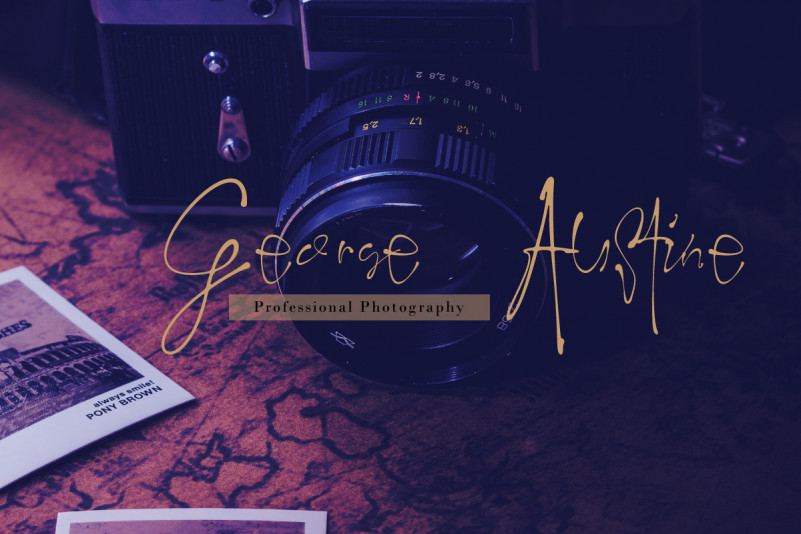
Traffalgar D’ Signature Font
Traffalgar D’ Signature Font is an elegant handwritten signature with a natural style. This collection is perfect for personal branding that intends to be used as a watermark and business card.
Traffalgar D’ Signature font also can be used for various purposes such as wedding invitation, graphic design, print design, web design, logo, branding, and others.